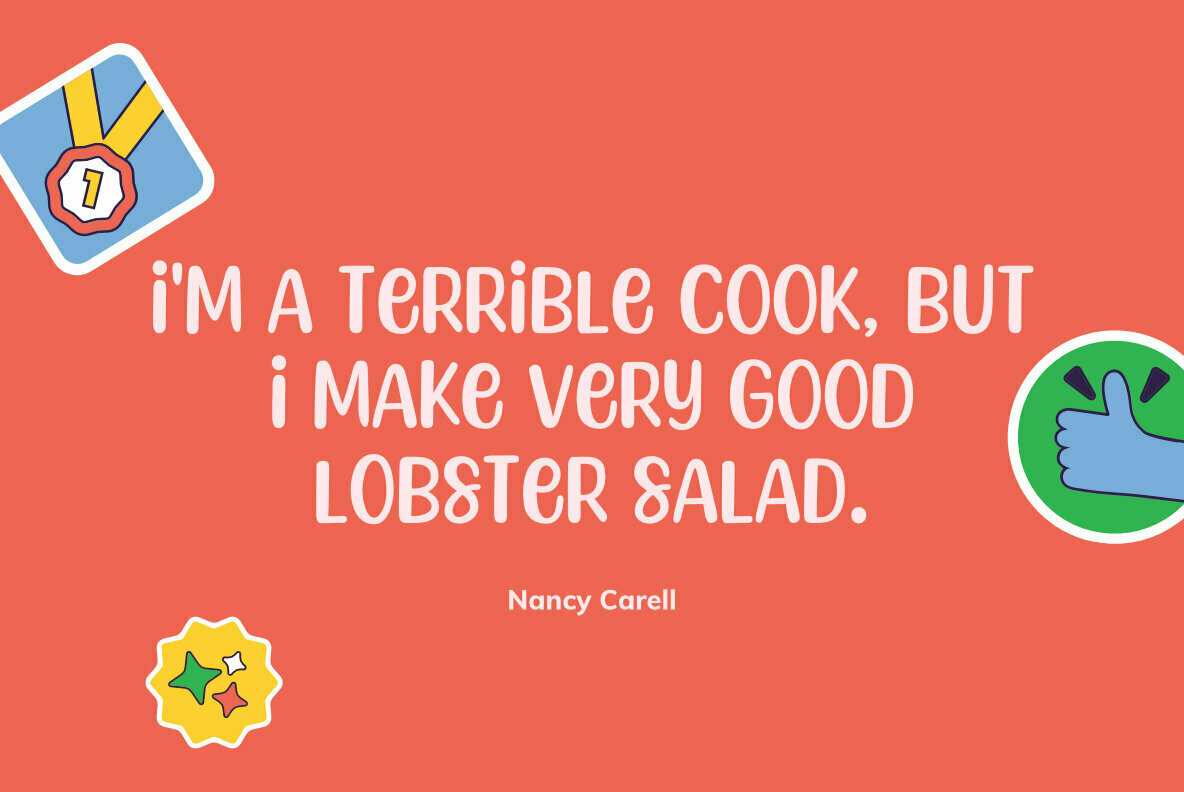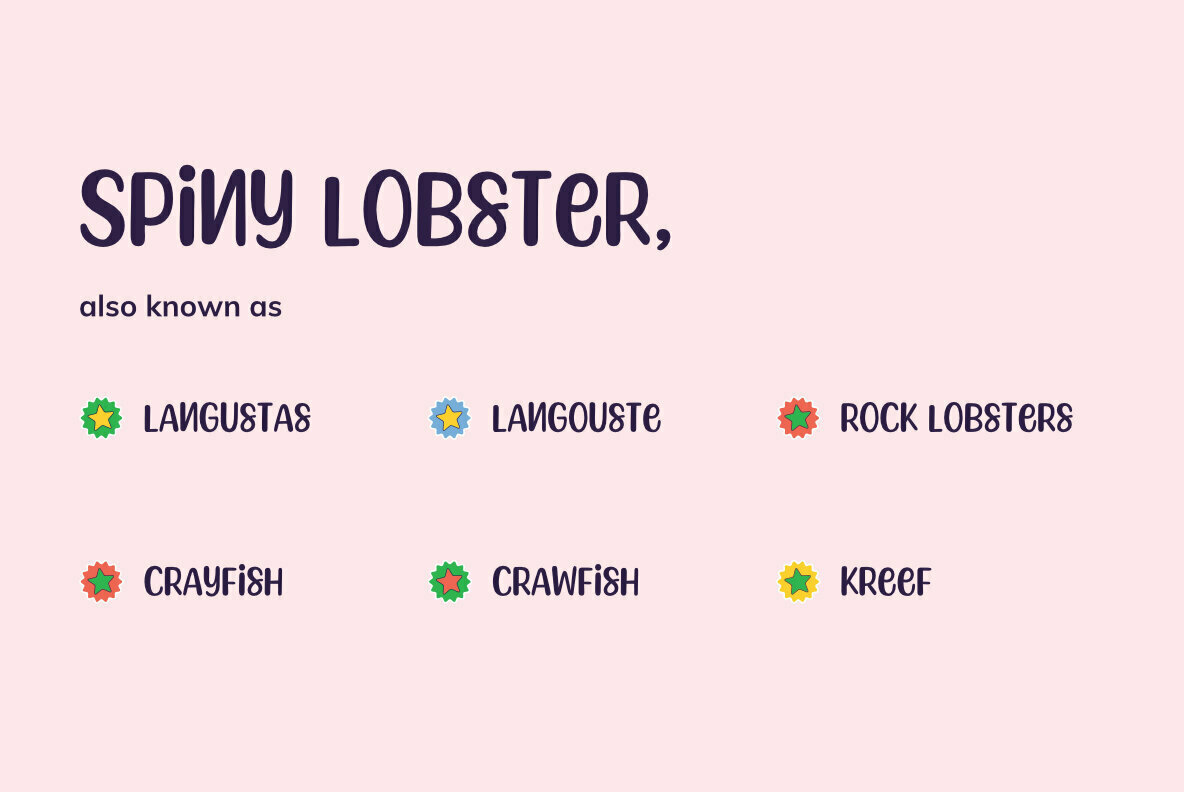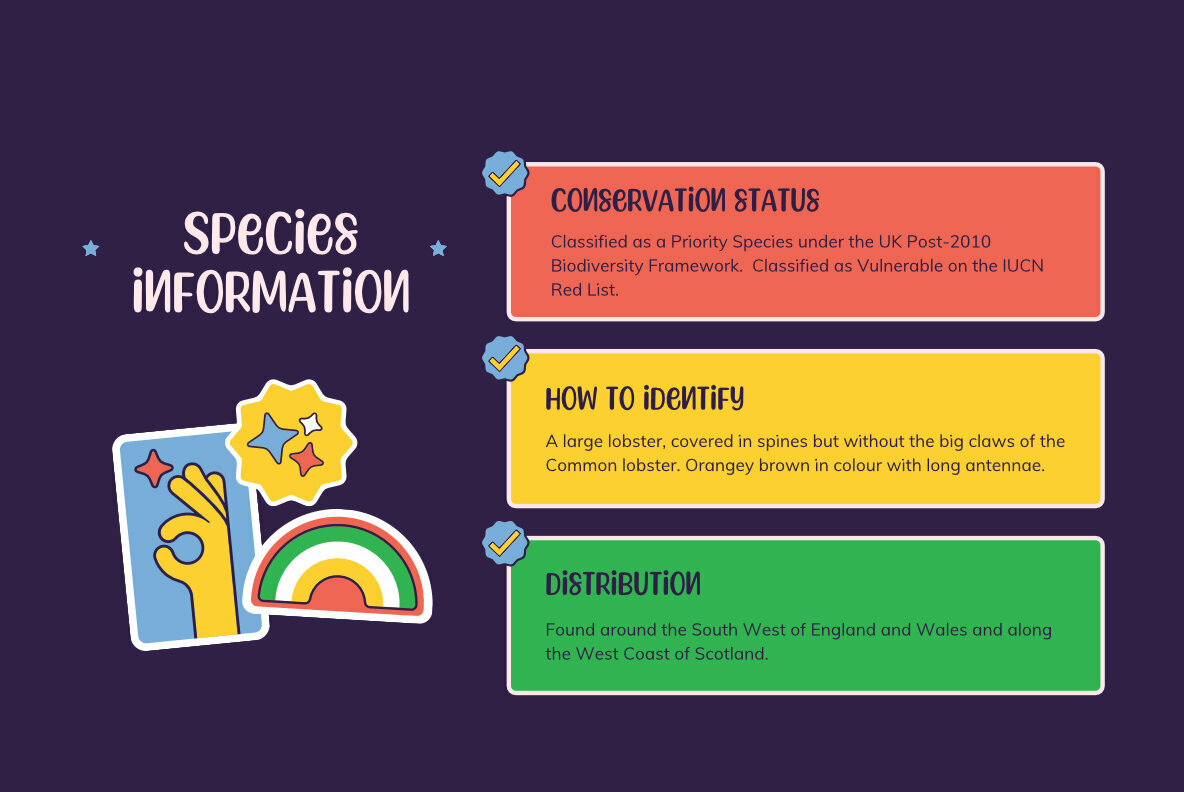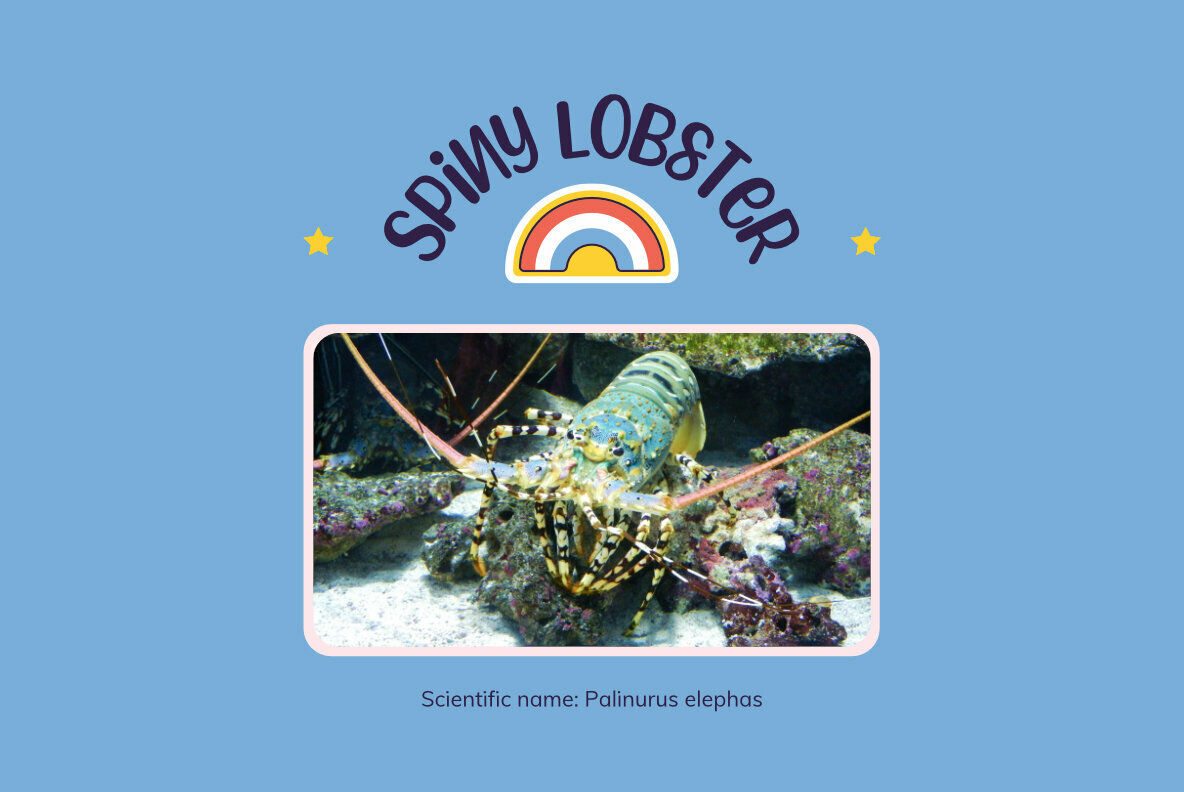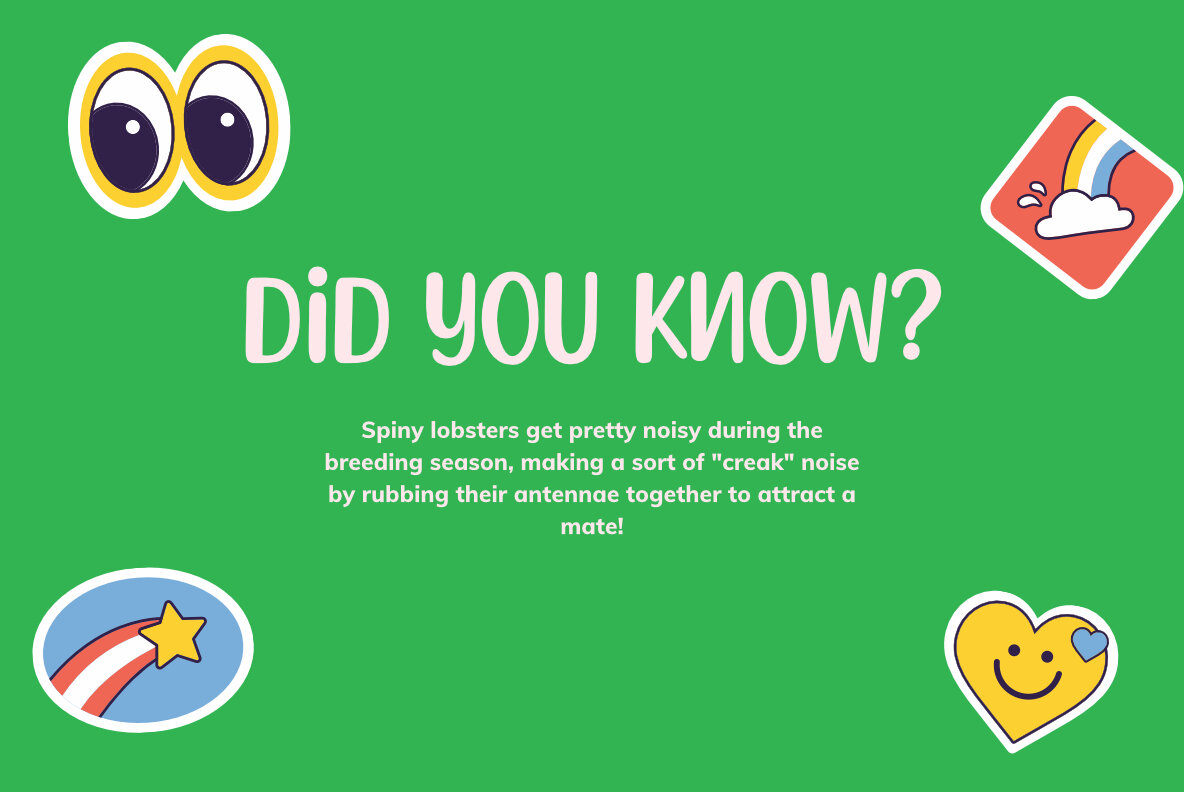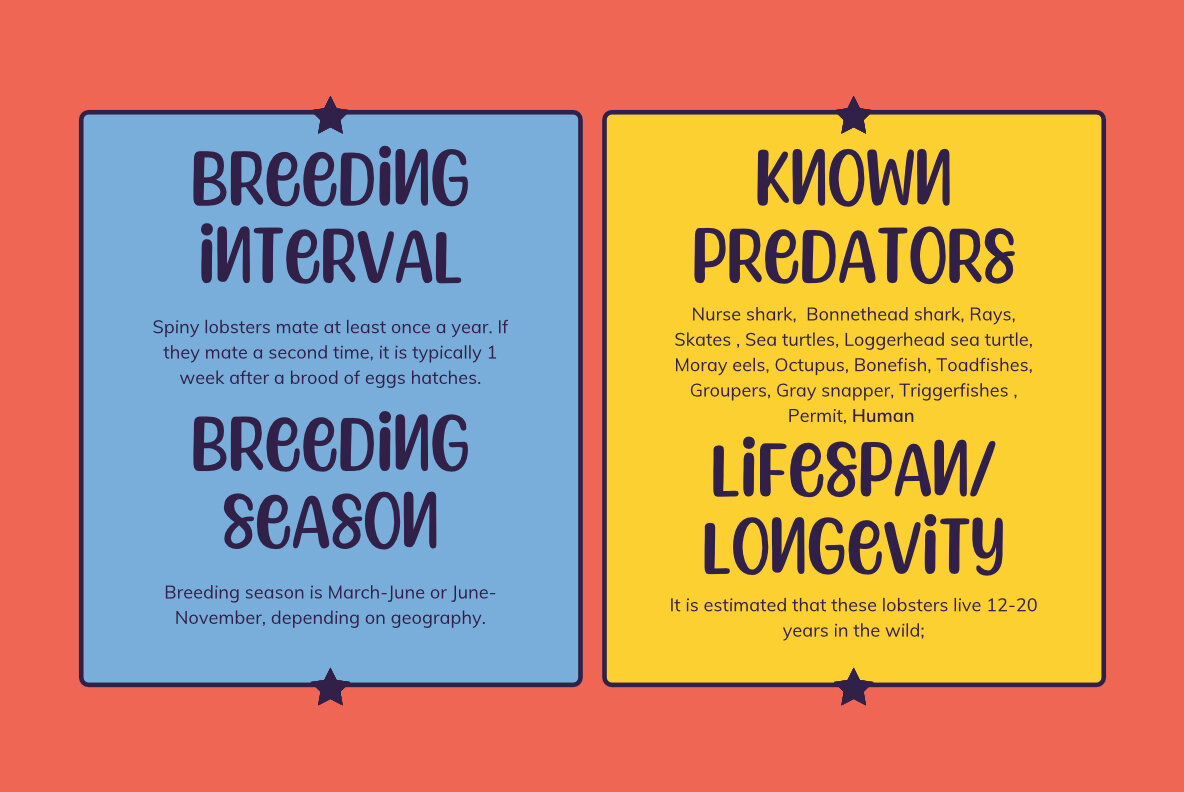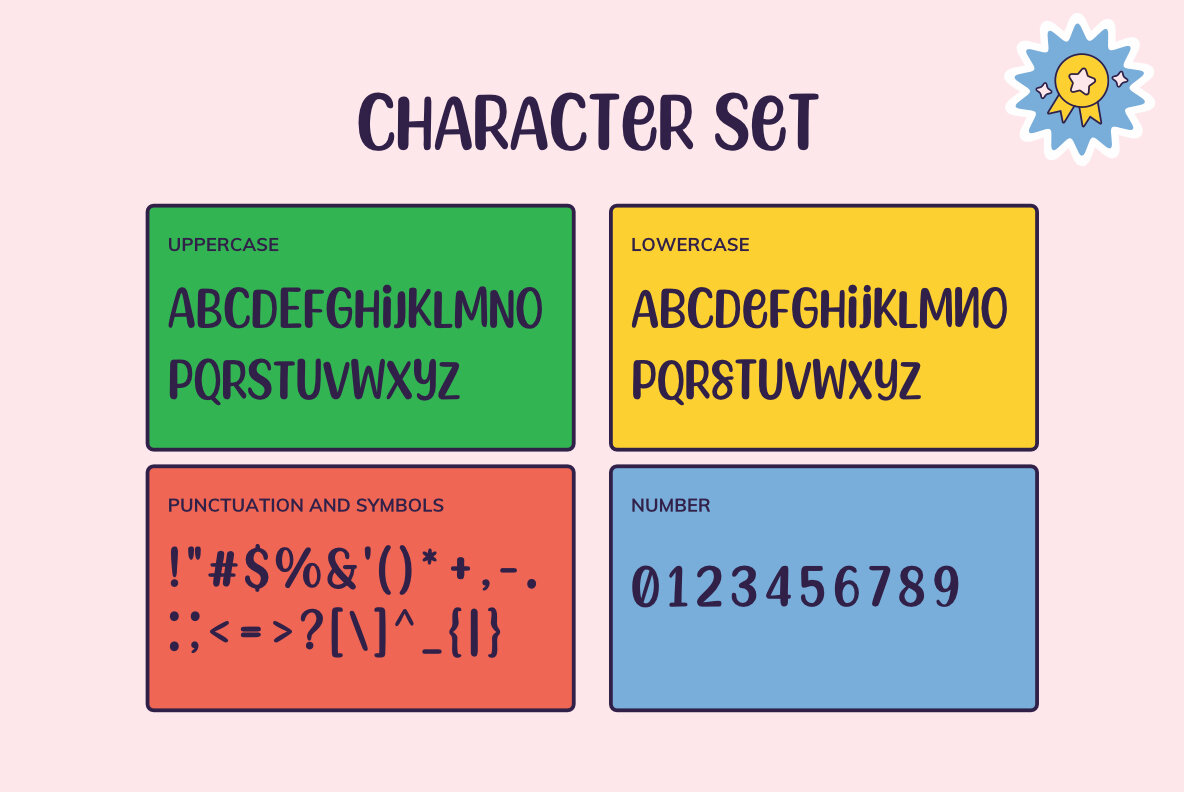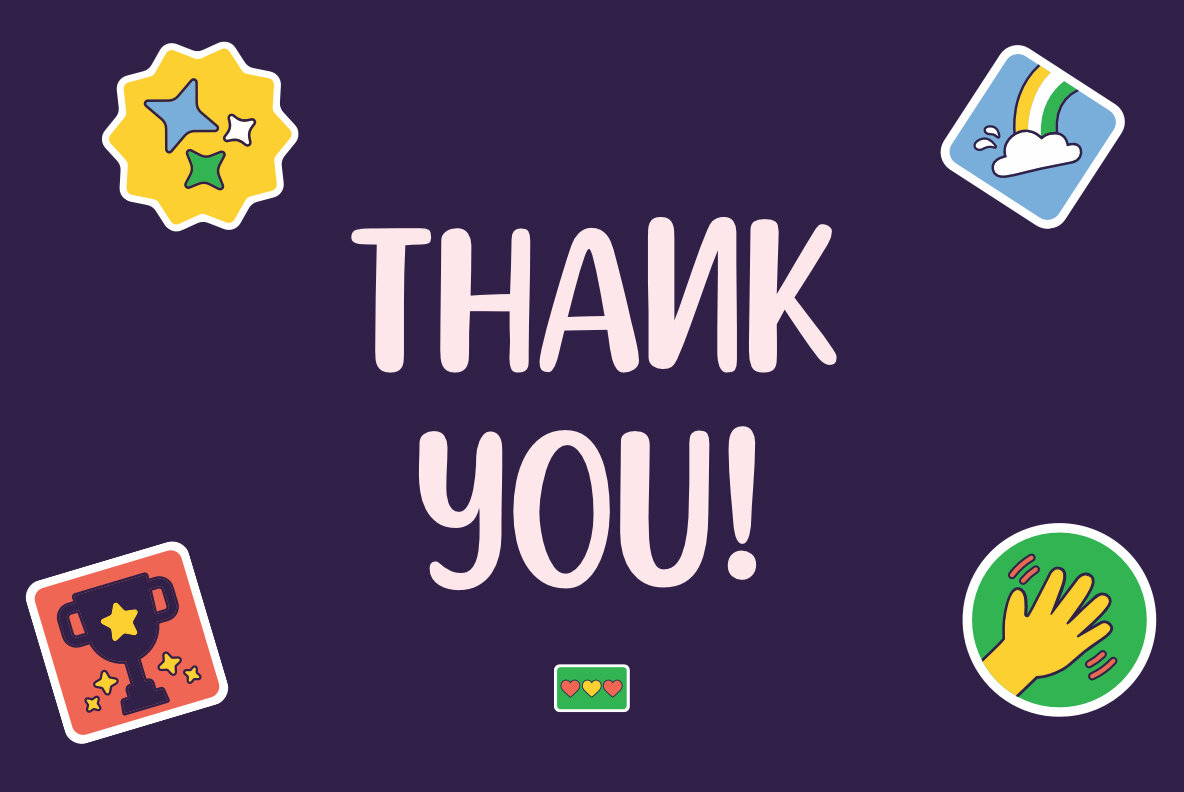
Spiny Lobster Font
Spiny Lobster Regular
Spiny Lobster is a cool and friendly display font. No matter the topic, this font will be an incredible asset to your fonts’ library, as it has the potential to elevate any creation.